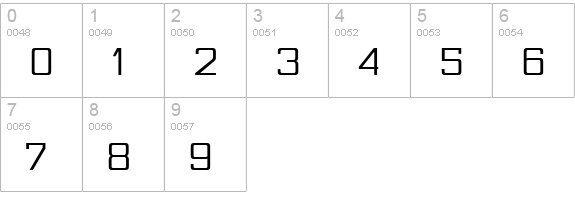
NesobriteRg-Regular is the standard, neutral variant in the NesobriteRg typeface family \xE2\x80\x94 well suited to general body text, paragraphs, and standard typographic work.
NesobriteRg-Regular is a versatile and modern font that combines sleek elegance with a touch of playfulness. Its clean lines and balanced proportions make it suitable for a wide range of design projects, from branding to editorial design. The font's legibility and readability ensure that your message will always come across clearly and effectively. One of the best features of NesobriteRg-Regular is that it is completely free to use. You can easily download this font from FontsMarket.com and start using it in your projects right away. Whether you are a professional designer or a hobbyist looking to add a stylish touch to your creations, NesobriteRg-Regular is a fantastic choice that won't cost you a penny. Don't hesitate to grab this amazing font and elevate your designs with its modern and sophisticated aesthetic.